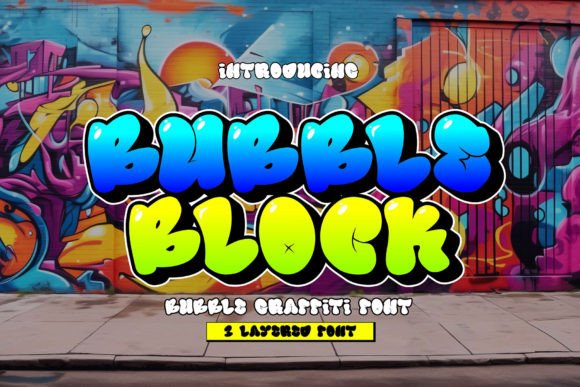
The Ultimate Guide to Bubble Block Font: Elevate Your Designs with 3D Graffiti Style
I’ll never forget the time I was working on a project for a client who wanted a bold, eye-catching font that would make their poster stand out. I scoured the internet for hours, trying to find the perfect font, but nothing seemed quite right. That was until I stumbled upon the Bubble Block font. With its 3D layered graffiti style, I knew I had found the perfect fit. In this article, I’ll share my experience with Bubble Block, its features, and how to use it to take your designs to the next level.
What is Bubble Block Font?
Bubble Block is a 3D layered graffiti font that includes solid, shadow, and inner shadow styles. This allows you to create a three-dimensional appearance in your text, making it perfect for designs that require a prominent 3D effect. The font is often used in graffiti art, posters, and other designs where a bold, eye-catching look is desired.
My Honest Review of Bubble Block Font
So, what do I love about Bubble Block? Here are a few things:
- ✨ Easy to use: The font is straightforward to use, even for those who are new to designing with layered fonts.
- ✅ Highly customizable: With multiple layers to work with, you can customize the font to fit your design needs.
- 💥 Attention-grabbing: The 3D effect of the font is sure to grab attention and make your designs stand out.
However, there are a few small quirks to be aware of:
- 🤔 Layer management: With multiple layers to work with, it can be easy to get your layers mixed up. Make sure to keep track of your layers to avoid confusion.
- ⚠️ Font size limitations: The font can look a bit distorted if it’s too small. Make sure to use it at a large enough size to get the best results.
The Designer Inspiration Behind Bubble Block
Bubble Block was inspired by the urban art scene, where graffiti and street art reign supreme. The font’s designer wanted to create a font that would allow designers to create bold, eye-catching text that would stand out in a crowd. With its 3D layered style, Bubble Block is perfect for designs that require a prominent 3D effect.
| Font Name | Bubble Block Font |
| Author | Cikareotype |
| What is the best way to use Bubble Block font? | The best way to use Bubble Block font is to use it for designs that require a bold, eye-catching look, such as posters, graffiti art, or streetwear designs. |
| Is Bubble Block font easy to use? | Yes, Bubble Block font is relatively easy to use, even for those who are new to designing with layered fonts. |
| Can I customize the layers in Bubble Block font? | Yes, Bubble Block font comes with multiple layers that can be customized to fit your design needs. |